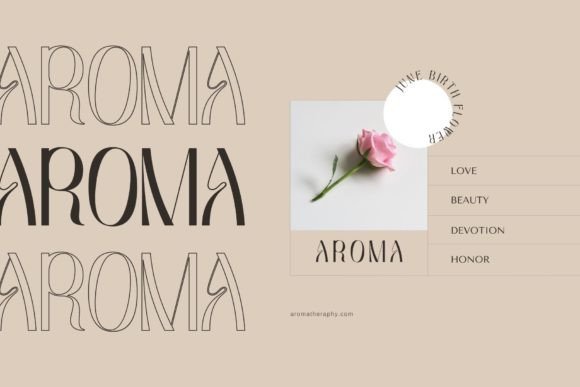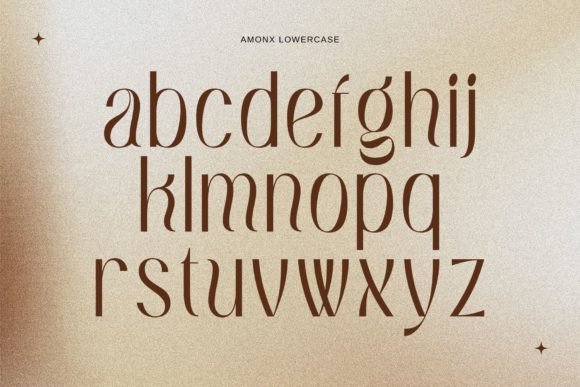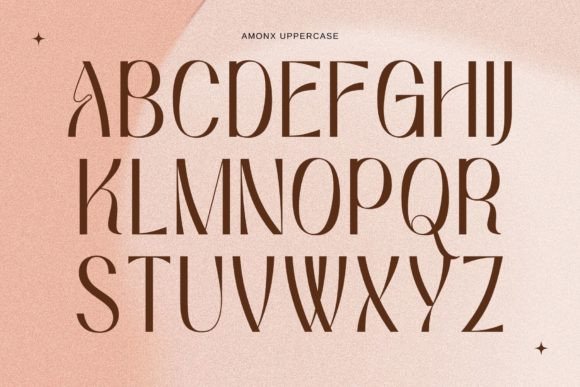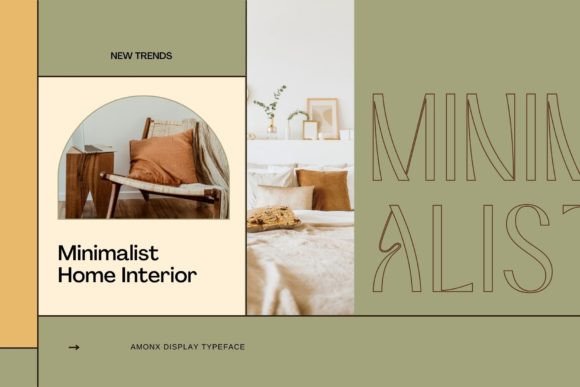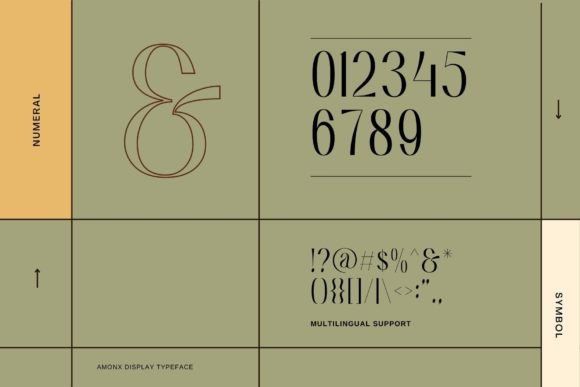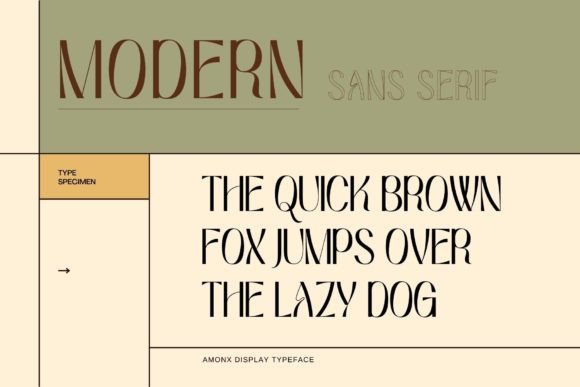
Amonx Font: Elevate Your Design Projects with Typographic Harmony
In the world of design, typography plays a crucial role in conveying messages, expressing creativity, and building brand identities. With numerous fonts available, finding the perfect one that resonates with your project’s tone and style can be overwhelming. This is where Amonx Font comes into play, offering a beautiful typographic harmony that caters to a diversity of design projects, including logos & branding, social media posts, advertisements, and product designs.
What is Amonx Font?
Amonx Font is a thoughtfully crafted typeface designed to provide a unique and harmonious visual experience. Its elegant and versatile design makes it an excellent choice for various applications, from digital media to print materials. The font’s creator aimed to develop a typeface that not only looks great but also enhances the overall aesthetic of a design project.
Key Features of Amonx Font
- Beautiful Typographic Harmony: Amonx Font boasts a distinct typographic style that ensures harmony and balance in any design project.
- Versatility: The font is suitable for a wide range of applications, including logos & branding, social media posts, advertisements, product designs, and more.
- Elegant and Clean Design: Amonx Font features an elegant and clean design that adapts seamlessly to different design contexts.
- Easy to Read: The font’s clear and readable design ensures that your message is conveyed effectively, making it perfect for body text and headings.
Benefits of Using Amonx Font
Using Amonx Font in your design projects offers numerous benefits, including:
- Consistency: Amonx Font helps maintain consistency in your brand’s visual identity, which is essential for building recognition and trust.
- Creativity: The font’s unique design elements and versatility inspire creativity, allowing you to experiment with different styles and layouts.
- Professionalism: Amonx Font’s elegant and clean design gives your projects a professional look, making them stand out from the competition.
- Time-Saving: With Amonx Font, you can save time searching for the perfect font, as it adapts seamlessly to various design contexts.
Design Applications of Amonx Font
Amonx Font is an excellent choice for various design applications, including:
- Logos & Branding: Create a lasting impression with a unique and memorable logo that reflects your brand’s personality.
- Social Media Posts: Elevate your social media presence with eye-catching posts that showcase your brand’s style and tone.
- Advertisements: Grab attention with compelling ads that feature Amonx Font’s elegant and clean design.
- Product Designs: Add a touch of sophistication to your product designs, packaging, and labeling.
Tips for Using Amonx Font Effectively
To get the most out of Amonx Font, consider the following tips:
- Experiment with Font Sizes: Play with different font sizes to create visual hierarchy and emphasize important information.
- Pair with Other Fonts: Combine Amonx Font with other fonts to create a unique and interesting typographic style.
- Adjust Line Spacing: Optimize line spacing to ensure readability and flow.
- Use Color Wisely: Select colors that complement Amonx Font’s design and enhance the overall aesthetic of your project.
Amonx Font is a versatile and elegant typeface that offers beautiful typographic harmony for a diversity of design projects. Its unique design elements, readability, and adaptability make it an excellent choice for designers and crafters looking to elevate their projects. By incorporating Amonx Font into your design workflow, you can create stunning visual experiences that leave a lasting impression.